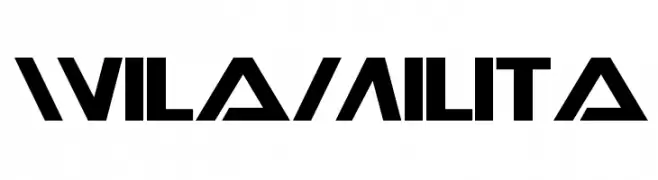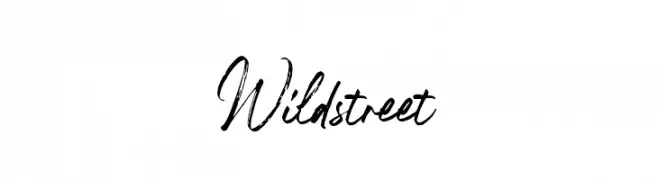
A bold, wide sans-serif font with a modern and clean design.
A modern, geometric font with clean lines and wide letterforms.
A playful, hand-drawn font with irregular, brush-like strokes.
A whimsical, hand-drawn font with tall, narrow letterforms and uneven strokes.
A jagged, thorn-like font perfect for Halloween themes.
A modern, elongated font with narrow characters and a striking visual impact.
A bold, futuristic font with geometric elements and high contrast.
A bold, cursive script font with dynamic, flowing strokes.
A bold, graffiti-inspired font with sharp angles and dynamic styling.